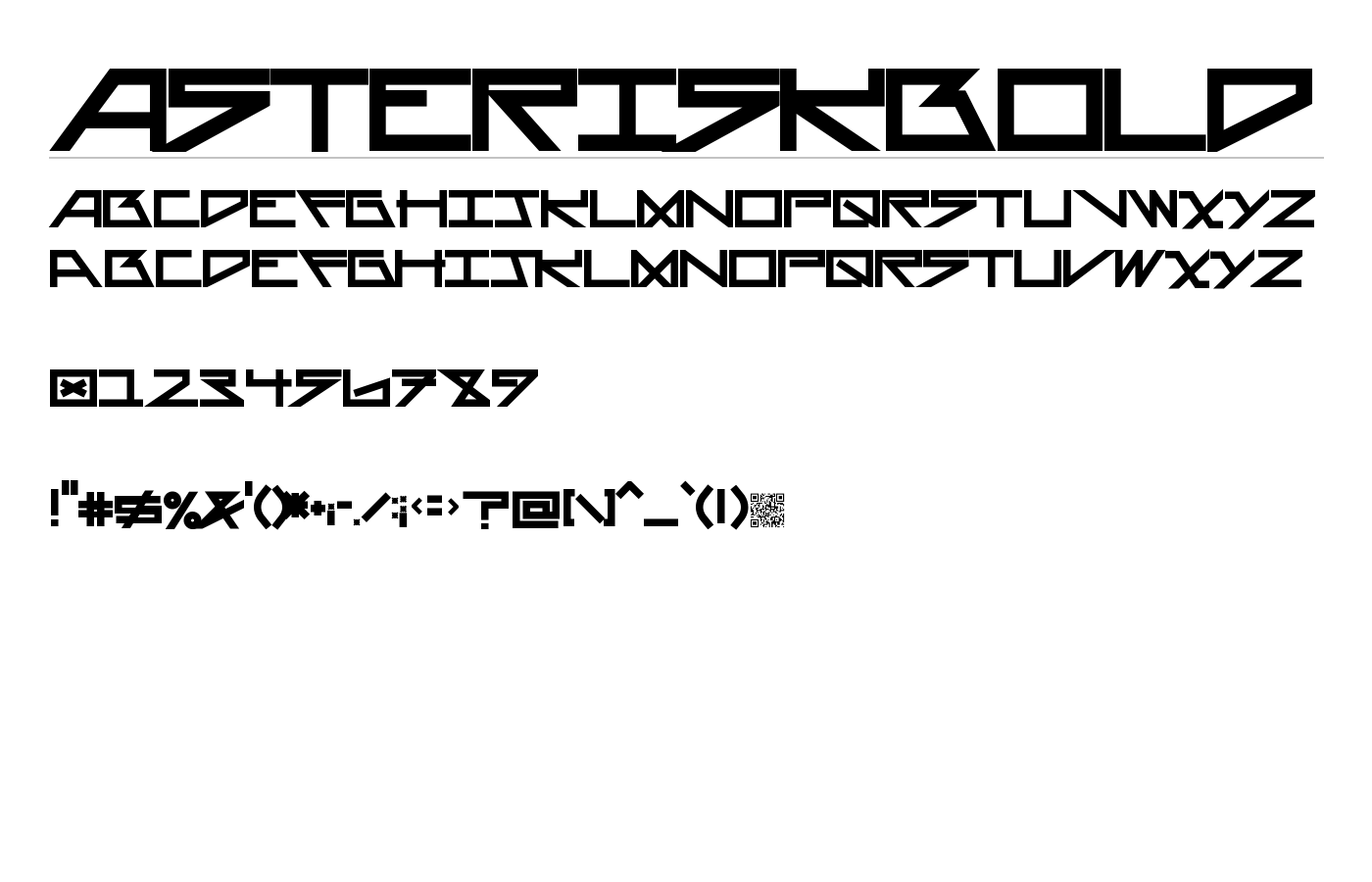
AsteriskLines is a bold, geometric sans serif font with sharp angles and a futuristic, tech-inspired style. Its compact letterforms and high contrast strokes give it a dynamic, edgy feel, making it ideal for striking headlines, logos, and designs that want to convey innovation or modernity. This font works best in creative branding, digital media, and projects seeking a strong, modern impact.
AsteriskLines Font
About AsteriskLines Font